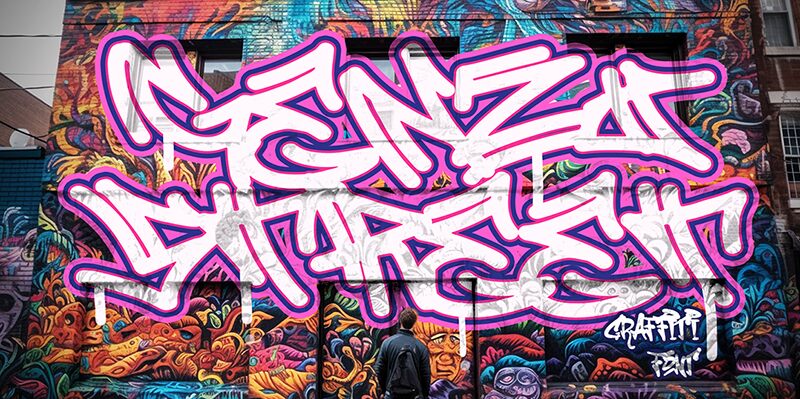
Genzi Street Graffiti
Genzi is a graffiti typeface inspired by urban art and the style of street graffiti artists. It comes with all the basic characters including upper letters, numbers, and special symbols. Its characters are extended and have a rough and edgy aesthetic with sharp ends and rough lines.
Its irregular texture makes it very suitable for edgy artworks that can be used for logos and branding designs for movies, TV shows, events, t-shirts and accessories designs, books and magazines titles, book covers, apparel printing, branding designs for companies with sports or underground themes etc.